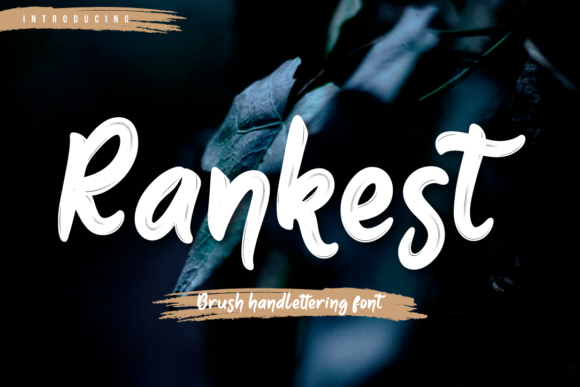
Prepare to unleash your literary masterpiece with the captivating brush strokes of Rankest, the font crafted specifically for the enchanting world of novel writing. Allow its every letter to dance across the page, inviting your readers on an unforgettable journey through your prose.
Rankest is more than just a font – it's a gateway to a realm where emotions ignite and words flow effortlessly. Its script typeface dances with grace and flair, embodying the passion and soul of your storytelling. Each stroke, carefully crafted by the expert hands of Productype, carries the weight of your imagination, transforming your words into a captivating symphony.
Immerse yourself in the boundless possibilities that Rankest offers. Whether you're crafting a poignant love story, a heart-pounding thriller, or a thought-provoking memoir, Rankest will become your trusted companion, guiding your readers through every twist and turn. Let your characters' voices resonate with authenticity, their emotions rendered with a depth that will leave an everlasting mark on your audience's hearts.
With Rankest, you'll discover a font that transcends mere aesthetics – it's an extension of your creative spirit, a tool that empowers you to weave tales that linger long after the final page is turned. So, embrace the magic of Rankest, and let your words take flight on the wings of inspiration.